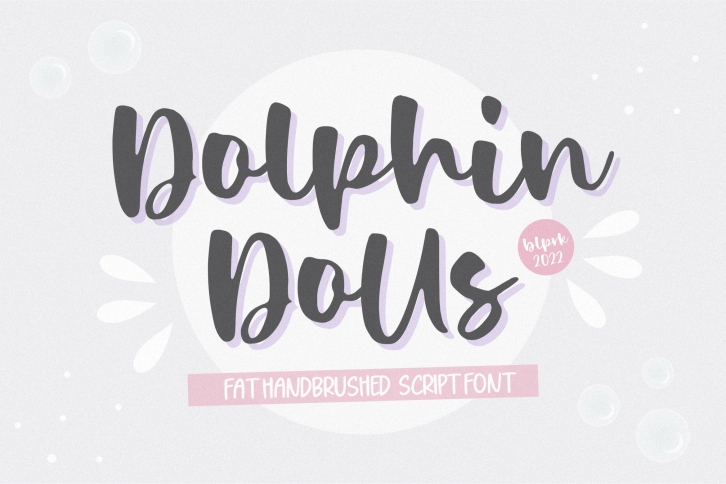
Dolphin Dolls Handbrushed Script is a beautiful font that was designed by Balpirick. It's a great choice for designers and creatives who need such a font. It was released on May 10, 2022 and the file size is 12.36 MB. Dolphin Dolls Handbrushed Script may give a more youthful, expressive and casual look to your project. It is a very beautiful, refined, elegant, and high-quality font.